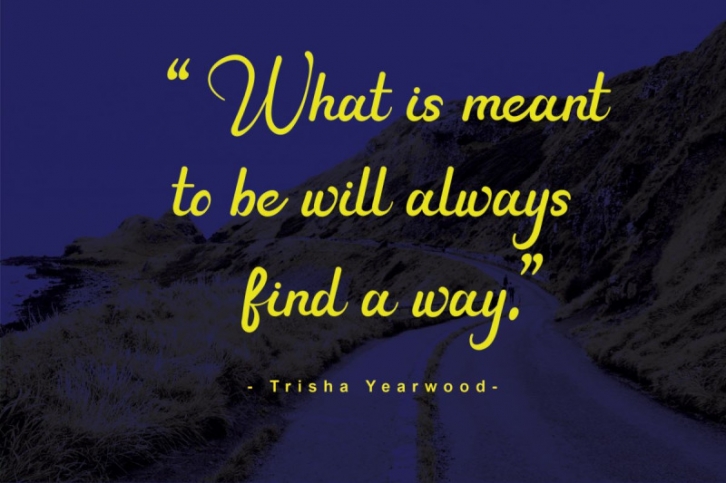
It is our pleasure to introduce our newest product "Sing Kagu Font". This gorgeous font will stand out when
incorporated into your designs.
This font is designed with a soft and attractive handwritten touch, of course, according to your needs.
Sing Kagu Font is perfect for Branding, food, wedding invitations, Product names, quotes, social media
page covers, food, drinks and much more.
- Alternate